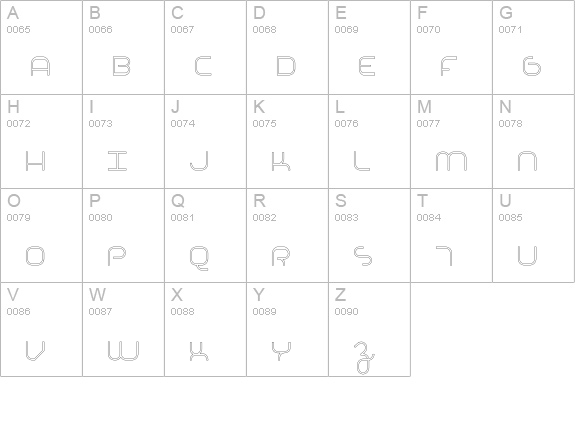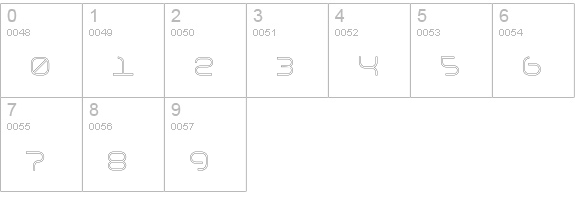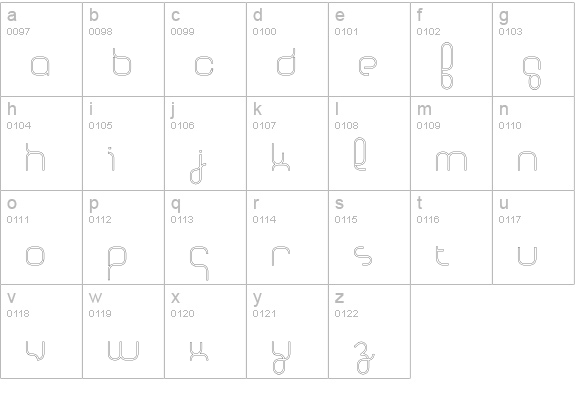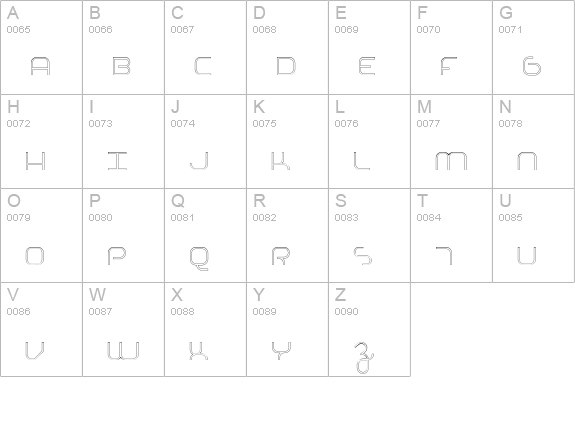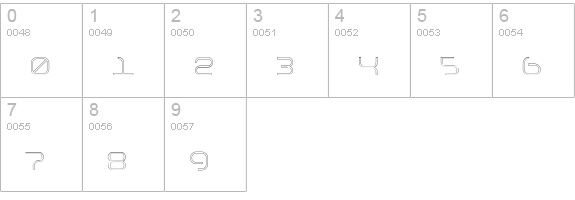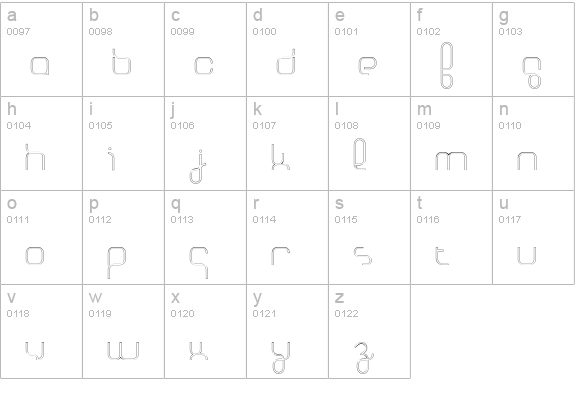
Basis-Outline font is a modern and sleek typeface that exudes a sense of sophistication and elegance. Its clean lines and sharp edges make it perfect for a variety of design projects, from branding to editorial layouts. The outline style adds a unique touch to any text, making it stand out and command attention. What's even better is that Basis-Outline font is completely free to download at FontsMarket.com. This means you can easily access this stylish font without any cost, making it a valuable addition to your font collection. Don't miss out on the opportunity to enhance your designs with Basis-Outline and elevate your creative projects to the next level.